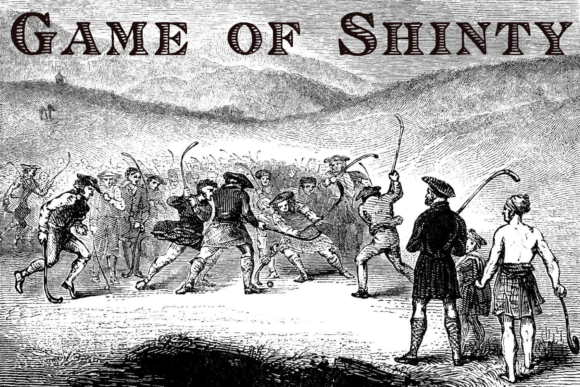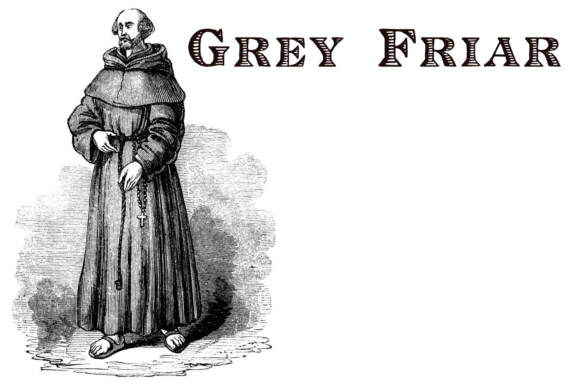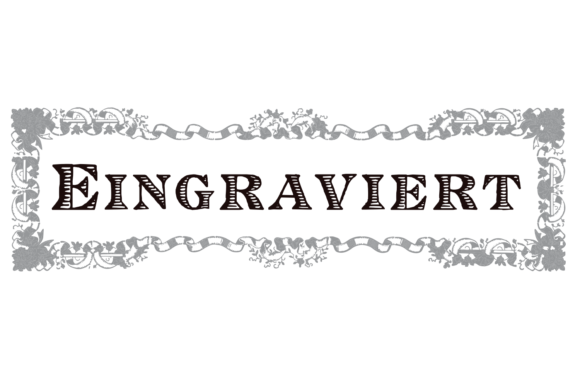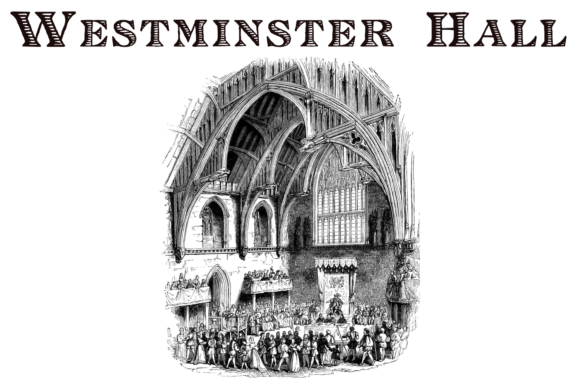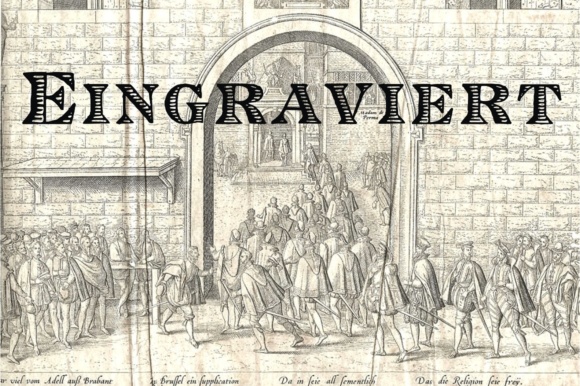
Eingraviert Font: A Timeless Classic Reborn
For designers and crafters, a good font can make all the difference in bringing a creative project to life. That’s why we’re excited to introduce the Eingraviert Font, a classic font design remastered by the renowned type foundry Intellecta Design. This beautifully crafted font is now available at a promotional price, but only for a limited time.
A Brief History of Eingraviert Font
The Eingraviert Font has a rich history, with its original design dating back to the early days of typography. The font’s classic style has been a favorite among designers and craftspeople for generations, prized for its elegant lines, precise letterforms, and versatility. Over the years, it has been used in a wide range of applications, from signage and printing to digital media and artisanal crafts.
Remastered by Intellecta Design
Intellecta Design, a respected name in the world of typography, has taken the classic Eingraviert Font and given it a modern makeover. The result is a font that retains its timeless charm while boasting crisp, clean lines and improved legibility. The remastered Eingraviert Font is a testament to Intellecta Design’s commitment to preserving the best of the past while embracing the demands of modern design.
What Makes Eingraviert Font Special?
So what sets the Eingraviert Font apart from other fonts on the market? Here are just a few reasons why designers and crafters are raving about this beautifully crafted font:
- Unique character: The Eingraviert Font boasts a distinctive, elegant style that adds a touch of sophistication to any project.
- Versatility: With its precise letterforms and balanced spacing, the Eingraviert Font is suitable for a wide range of applications, from headings and titles to body text and captions.
- Legibility: The remastered Eingraviert Font features improved legibility, making it perfect for both digital and print media.
- High-quality design: Intellecta Design’s attention to detail and commitment to quality ensure that the Eingraviert Font meets the highest standards of typographic excellence.
How to Use Eingraviert Font
The Eingraviert Font is incredibly versatile, making it suitable for a wide range of creative projects. Here are just a few ideas to get you started:
- Signage and printing: Use the Eingraviert Font to create eye-catching signs, brochures, and other marketing materials.
- Digital media: The Eingraviert Font is perfect for digital media, including website headers, social media graphics, and email marketing campaigns.
- Artisanal crafts: Add a touch of elegance to your handmade crafts, such as jewelry, textiles, and woodworking projects.
- Stationery and invitations: Use the Eingraviert Font to create beautiful stationery, invitations, and greeting cards.
In conclusion, the Eingraviert Font is a timeless classic that has been beautifully remastered by Intellecta Design. With its elegant lines, precise letterforms, and versatility, this font is sure to become a favorite among designers and crafters. Take advantage of the promotional price and add the Eingraviert Font to your collection today.